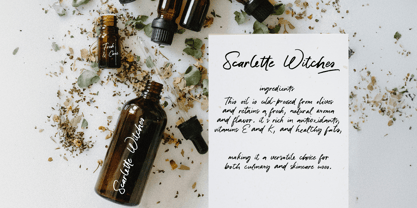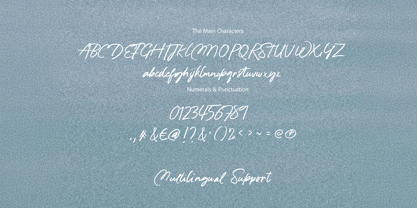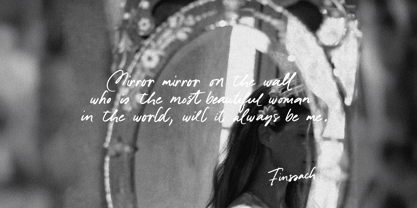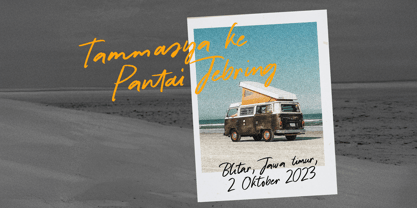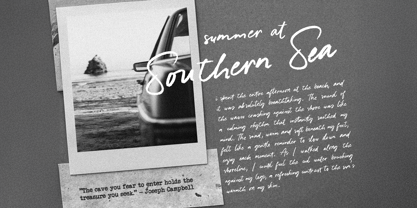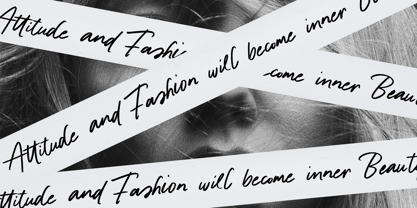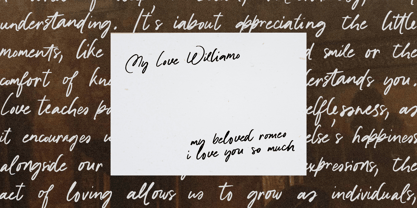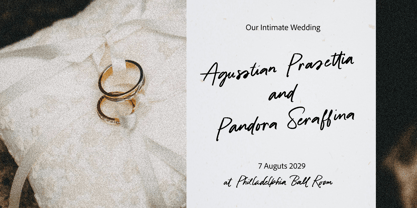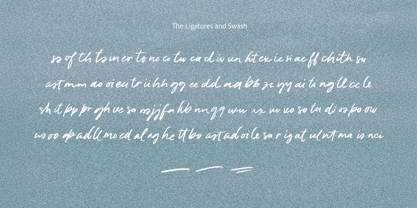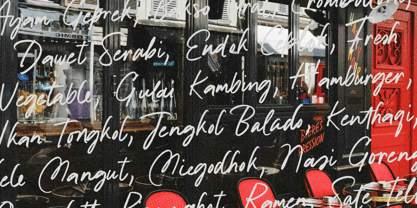
Wotteris Siottin
by Pinakiaa Studios
The Wotteris Siottin Font Family was designed by Fina Fadhila Rosida, Fina Fadhila and published by Pinakiaa Studios. Wotteris Siottin contains 1 styles.
Wotteris Siottin is a handwriting font that has many connected letters to make it more beautiful and easy to read, because it is like most people's handwriting. I made it simple but didn't reduce the aesthetic value of the handwritting. This font is suitable for use as a product logo, letters, invitation, food menus, or post card for your loved ones, etc
Designers: Fina Fadhila Rosida, Fina Fadhila
Publisher: Pinakiaa Studios
Foundry: Pinakiaa Studios